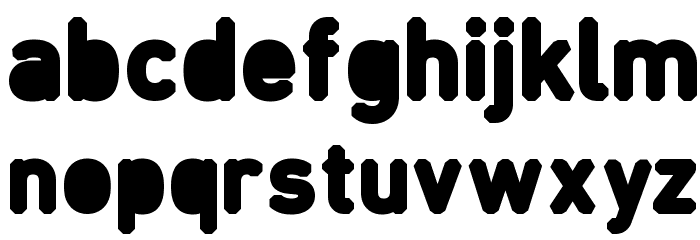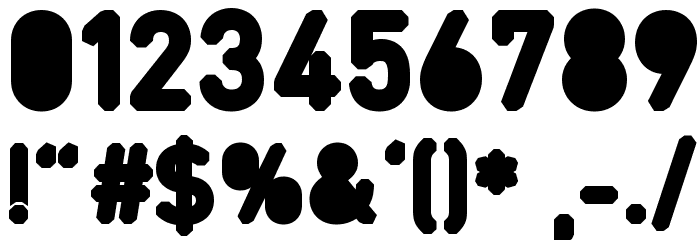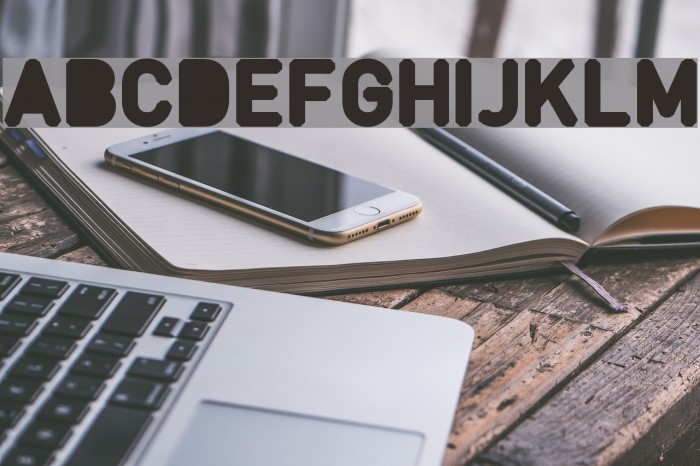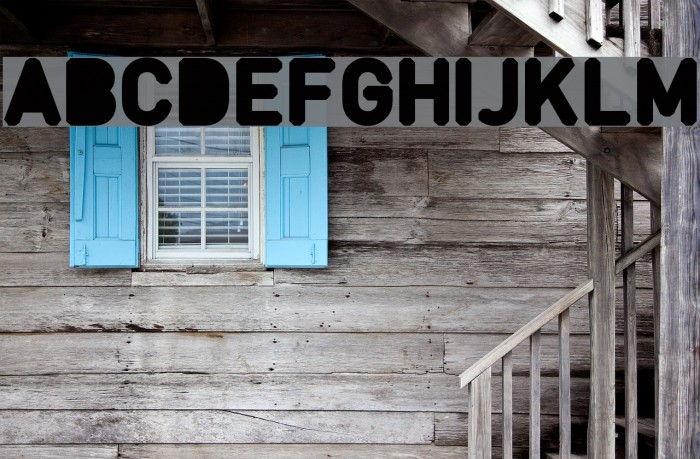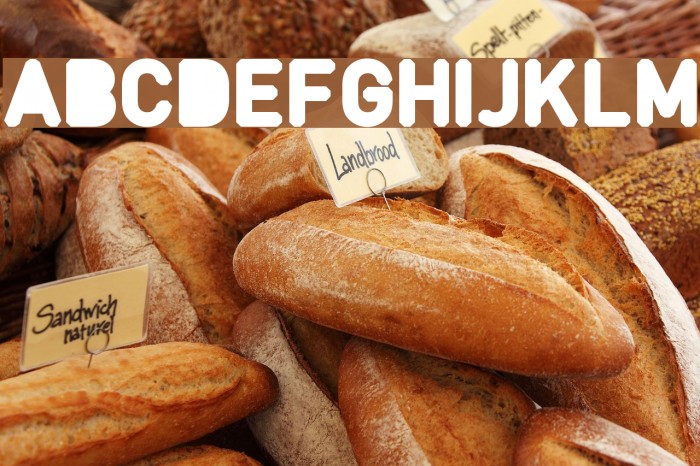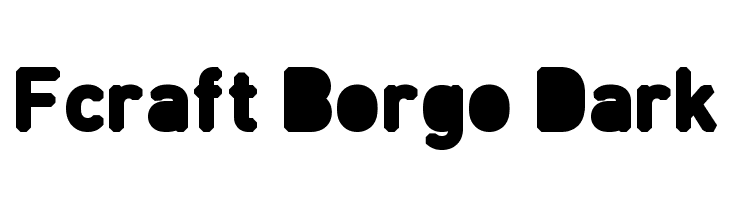
Fcraft Borgo Dark Font
This font features bold, rounded characters with a playful and modern aesthetic. The letters are thick and have a uniform stroke width, giving them a strong presence on the page. The rounded edges soften the overall look, making it approachable and friendly. The numbers and special characters maintain the same boldness and rounded style, ensuring consistency across all elements. This font is highly legible, even at smaller sizes, due to its clear and distinct letterforms.
A bold, rounded font with a playful and modern style.
- Proposed Projects: Ideal for branding, logos, children's books, and playful advertising campaigns.